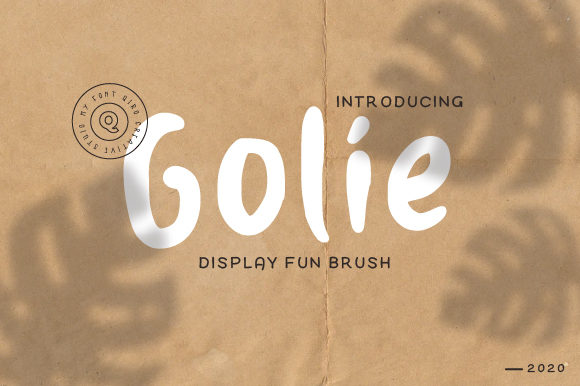
Discover Golie Font, the ultimate display font that adds a touch of sweetness and charm to your designs. Its delightful and friendly style brings a sense of playfulness and warmth, making it the perfect choice for food advertising, packaging, branding, and more. Unleash your creativity with Golie Font and create designs that truly captivate and engage your audience.
With its lovely curves and playful personality, Golie Font adds a personal touch to your creations. Its unique style stands out, ensuring that your designs leave a lasting impression. Golie Font's versatility extends beyond food advertising, making it a great option for branding, social media graphics, invitations, posters, and more. Let Golie Font be your creative companion and elevate your designs to new heights.
Golie Font is easy on the eyes, with its smooth lines and legible characters. It's designed to make your text pop, whether you're using it for headings, body copy, or logos. Its friendly and inviting nature makes it perfect for designs that aim to connect with audiences on a personal level. Golie Font is more than just a font; it's a delightful tool that brings a smile to your designs and captivates your audience.
Embrace the magic of Golie Font and let your creativity soar. Its natural and unique style is sure to make a statement in any design project. Golie Font is the font you didn't know you needed until now. Experience the difference and see how Golie Font transforms your designs into masterpieces that captivate and inspire. Don't miss out on this charming and versatile font; download Golie Font today and unlock a world of creative possibilities.